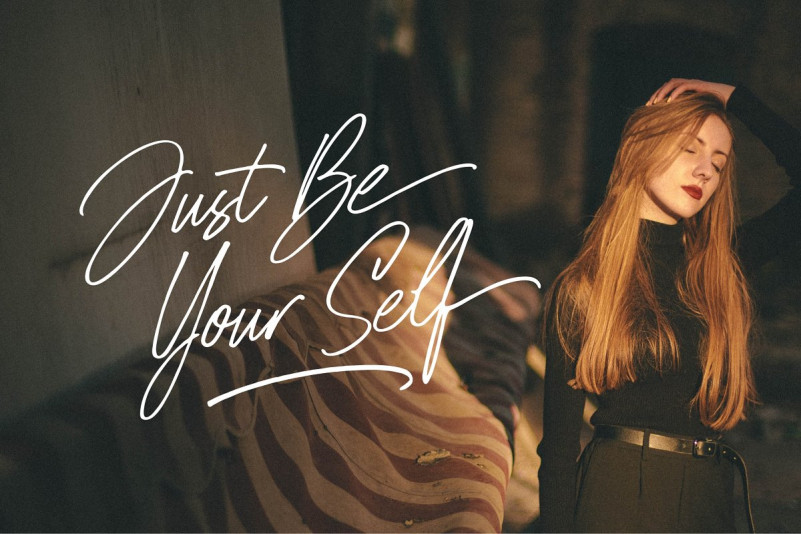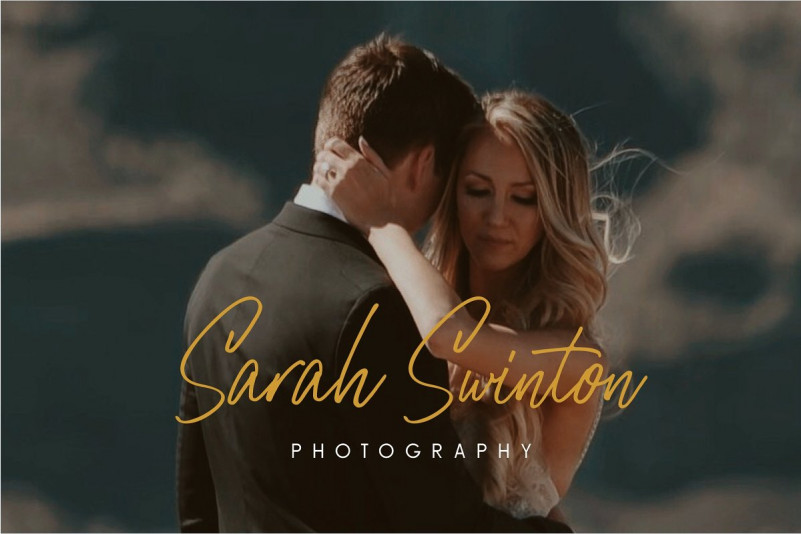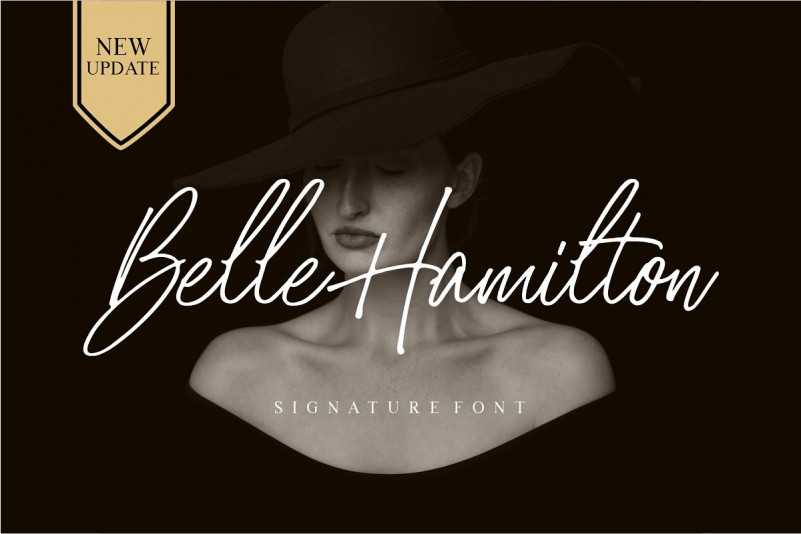
Belle Hamilton Font Duo
Hello world..!! Say hello to Belle Hamilton Font Duo! This is a luxury font. which comes with a combination of modern and elegant fonts, namely serif and signature style. Belle Hamilton Script is a beautiful signature font with the natural flow. Belle Hamilton signature style perfectly on invitations, logotype, branding, art quote, cards, product packaging, headers, letterhead, apparel design, label, and etc. Belle Hamilton comes with uppercase, lowercase, numerals, punctuation, multilingual characters.